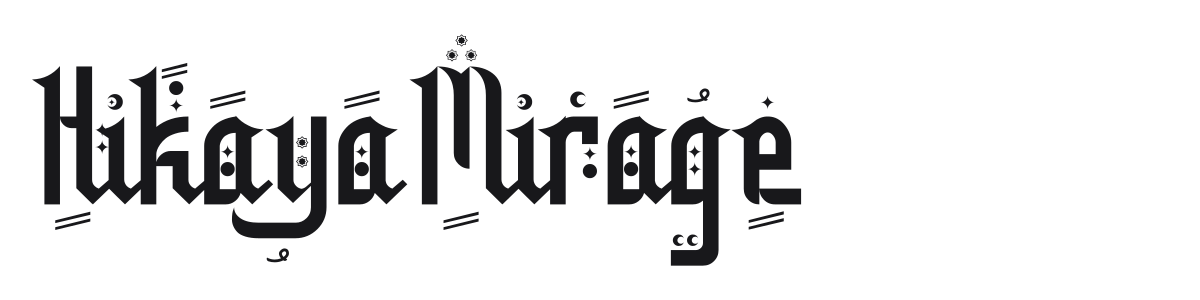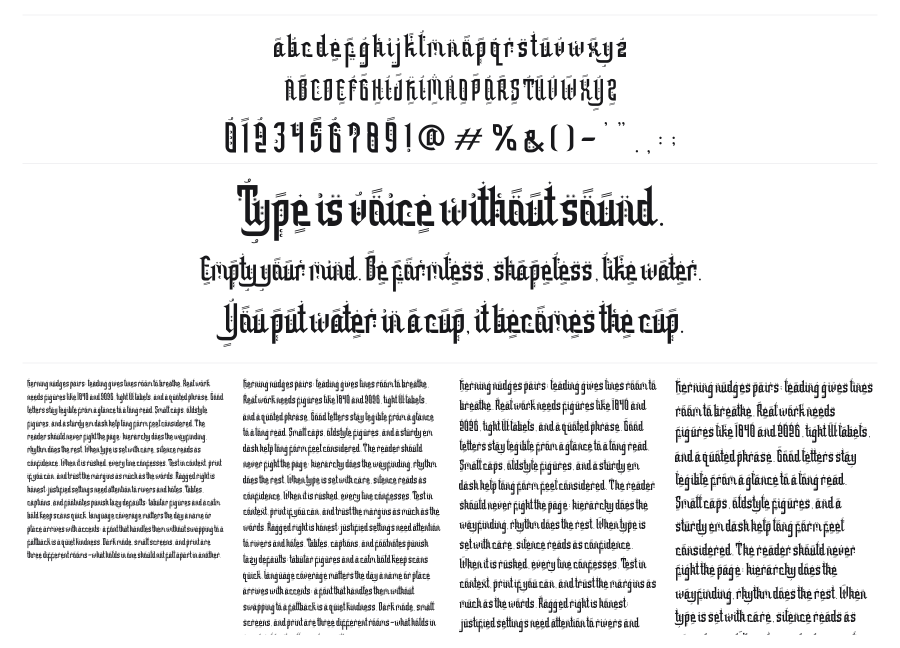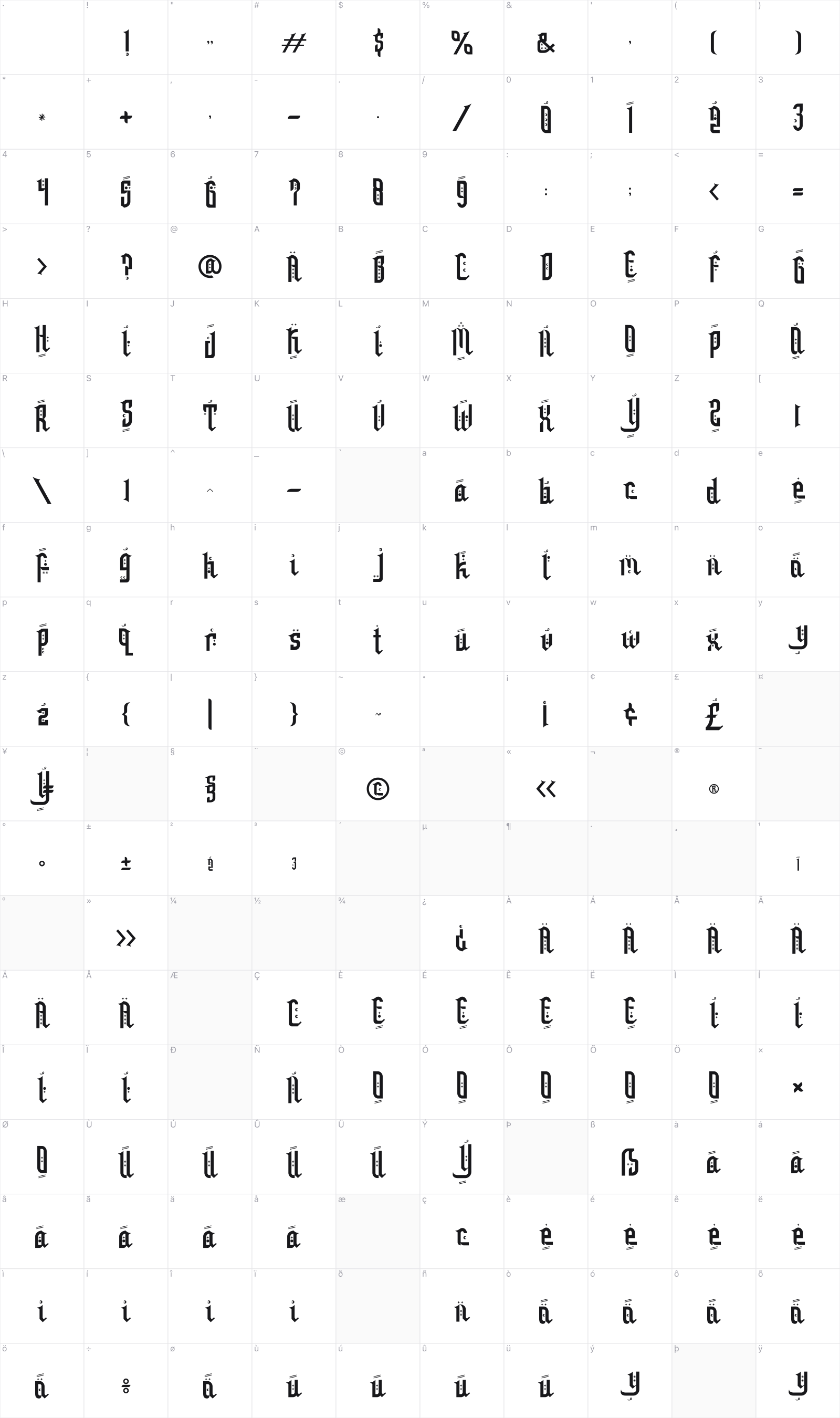
Hikaya Mirage
Hikaya Mirage is a bold display font that fuses blackletter structure with Arabic calligraphic ornament. Crescent moons, stars, and dot clusters float above each character, creating a layered mystical quality that's hard to find anywhere else. It reads as gothic from a distance and Arabian fantasy up close.